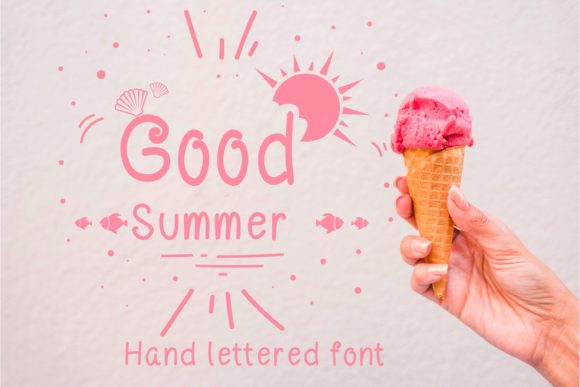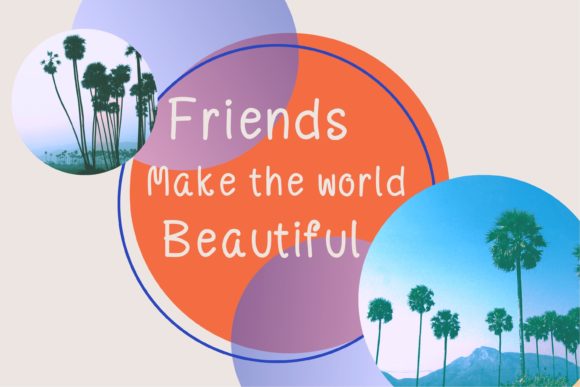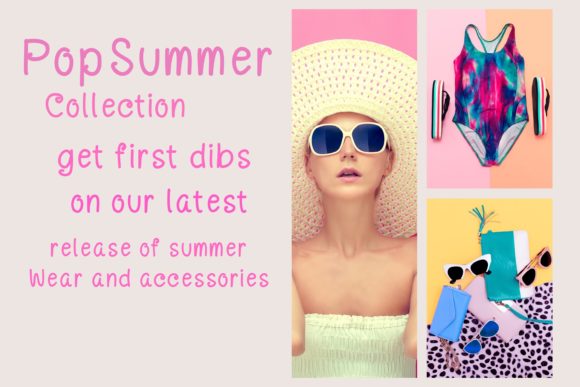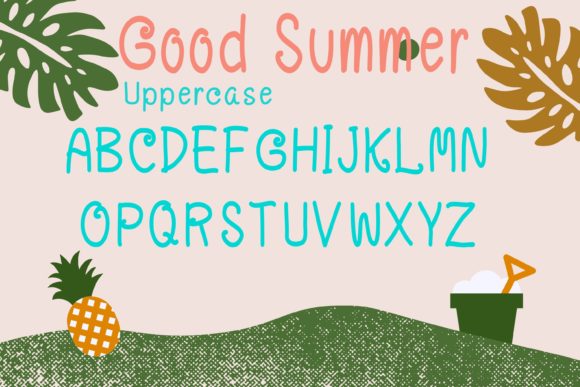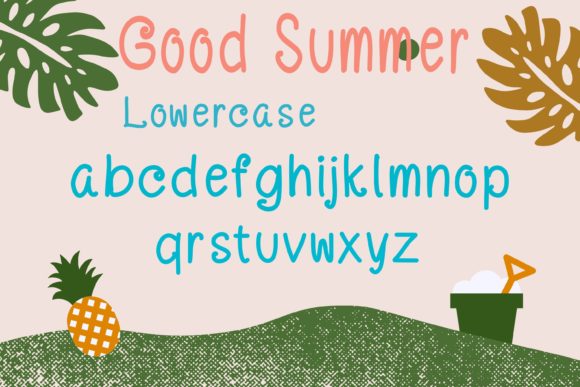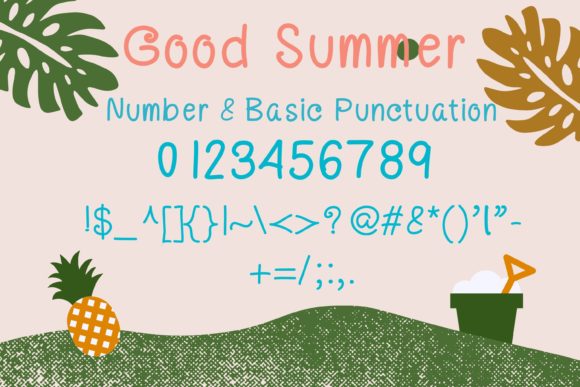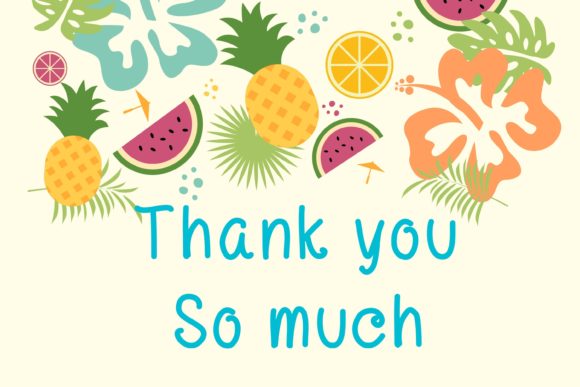
Good Summer Font
About Good Summer Font
Good Summer is a simple and sweet handwritten font. It can easily be matched to an incredibly large set of projects, so add it to your creative ideas and notice how it makes them stand out!